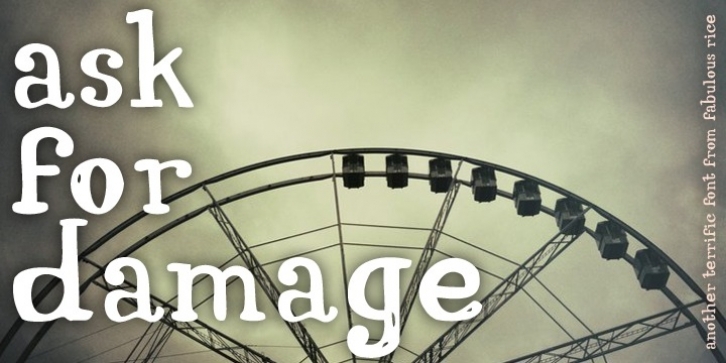
It’s cute. It’s round everywhere. It’s super-legible yet totally provocative.
Its name is “Ask for damage” and it’s the latest font from Fabulous Rice. With a totally unique look that’s gonna make them all say "whooaa-what?", it comes with a set of 26 (yes, you read that well!) unique design for all of the 26 lowercase letters of the alphabet (ooh, that’s why!), and was entirely designed on a Paris subway ticket.
The more you will use “Ask for damage”, the more you will love it, and the more you will want to use it again all over your documents. Beware, this font is highly addictive…